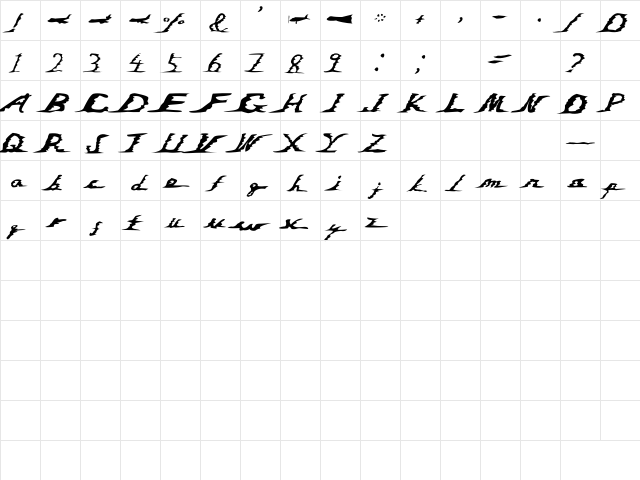
I'm NOT Weapon Regular
Design Context for I'm NOT Weapon Typeface
I'm NOT Weapon is a composed and adaptable typeface that performs quietly and consistently across a wide range of design contexts.